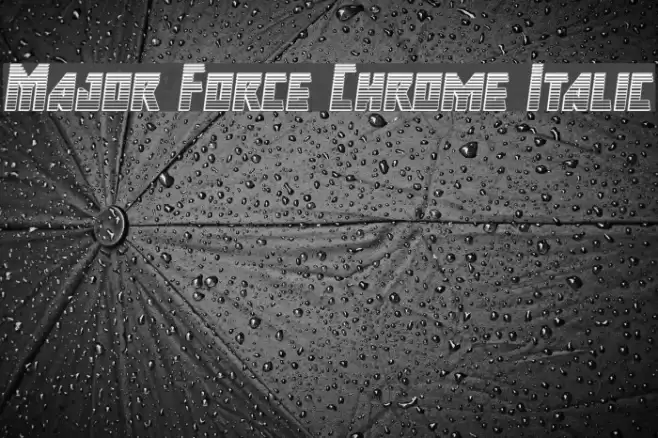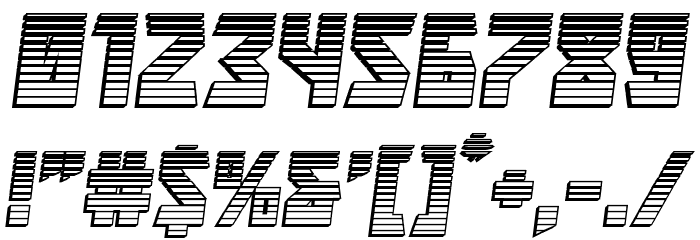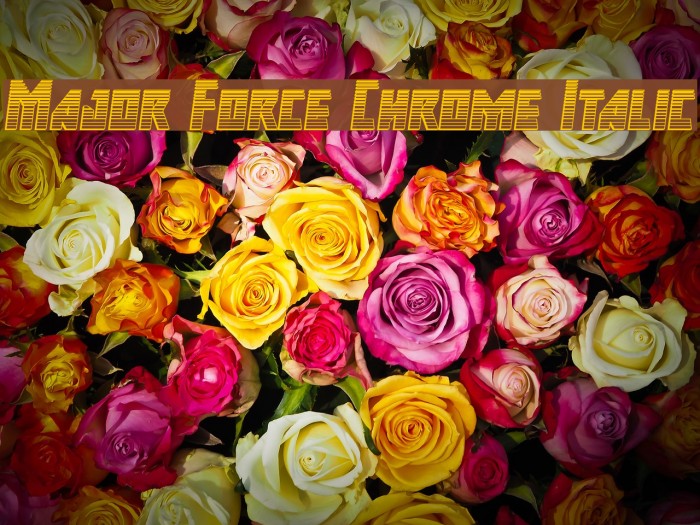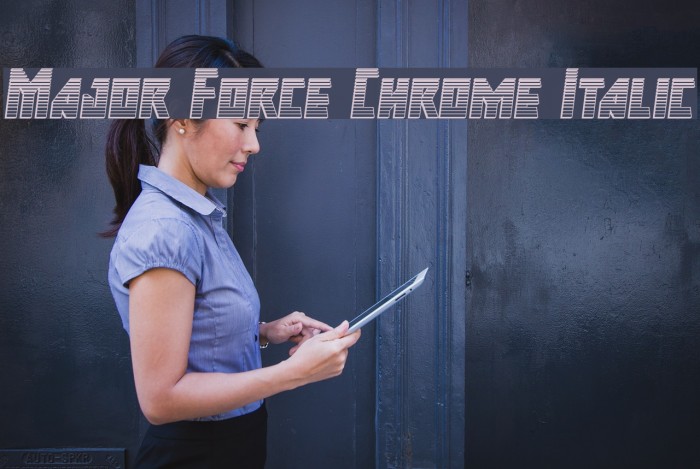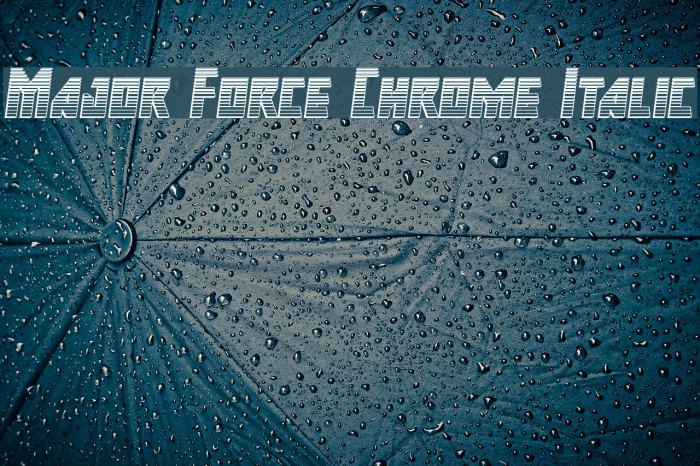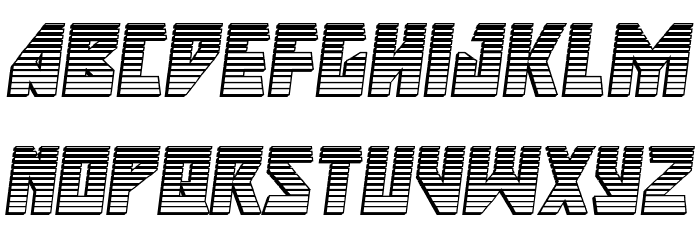
Major Force Chrome Italic Font
Major Force Chrome Italic Description
This font features a bold, futuristic design with a strong emphasis on geometric shapes and horizontal lines. Each character is constructed with a series of parallel lines, creating a three-dimensional effect that suggests movement and depth. The italic slant adds a dynamic quality, enhancing its modern and edgy appearance. The font is highly stylized, making it ideal for attention-grabbing headlines or logos. Its unique structure and bold presence make it unsuitable for body text but perfect for projects that require a strong visual impact.
A bold, geometric, and futuristic font with italic slant and three-dimensional effect from Sci-fi fonts.
- Proposed Projects: Ideal for sci-fi themed designs, video game titles, posters, and branding that requires a modern and dynamic look.